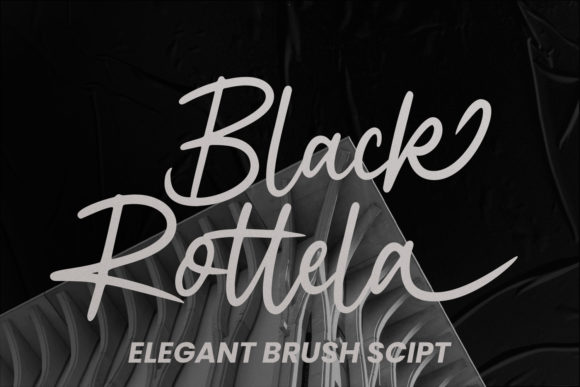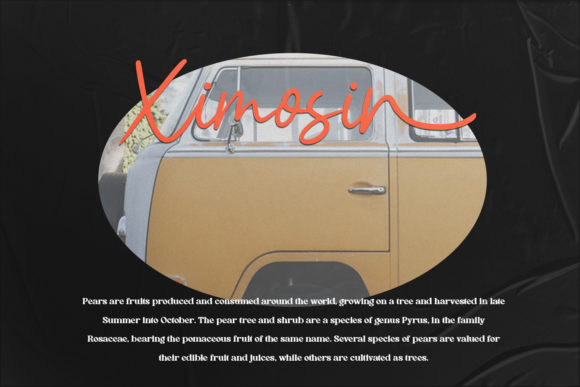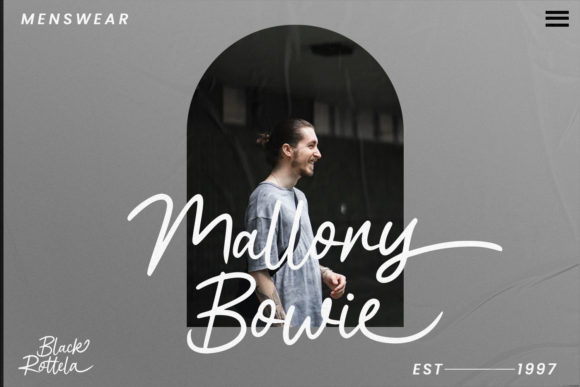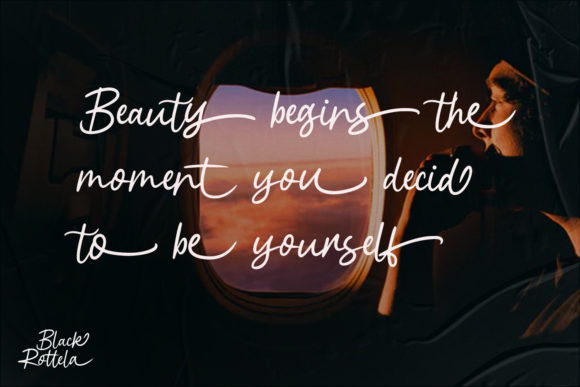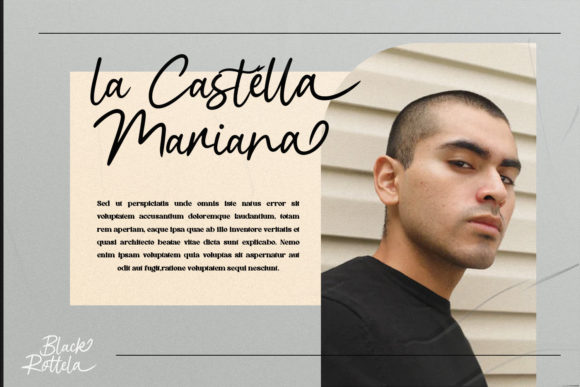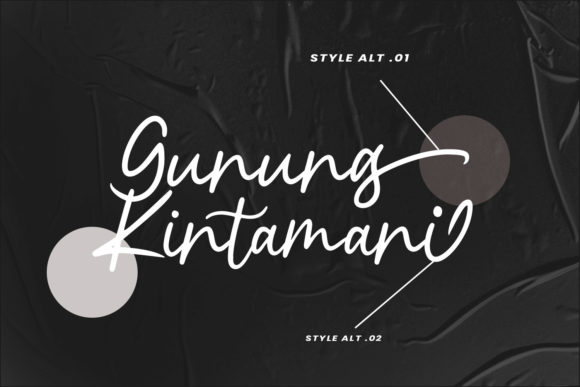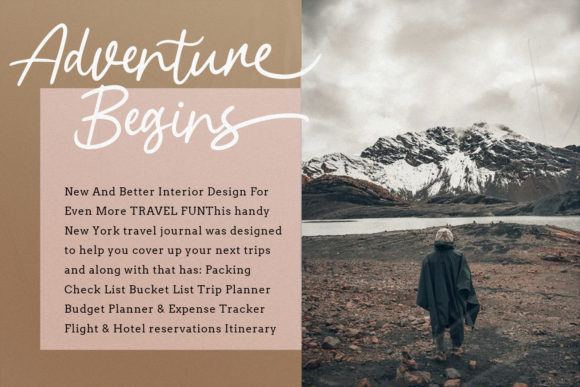
Black Rotela Script Font
About Black Rotela Script Font
Black Rotela Script is a lovely script font featuring charming, playful characters that seem to dance along the baseline. Add this font to your most creative ideas, and notice how it makes them stand out! This font is PUA encoded which means you can access all of the beautiful glyphs and swashes with ease!